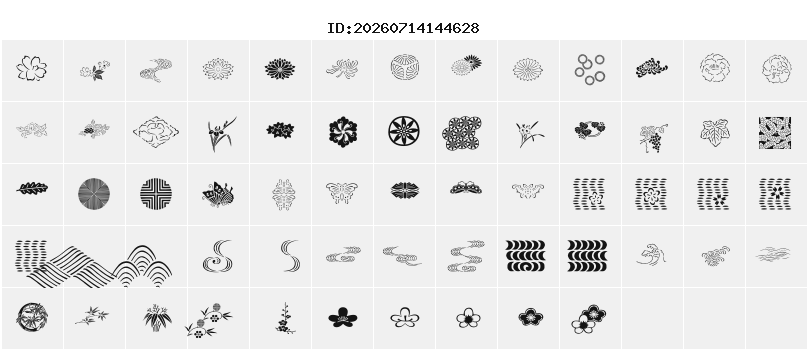
Japanese Garden Ornmnt ITC Preview
• Font Name: Japanese Garden Ornmnt ITC
• Designer: Akira Kobayashi
• Manufacturer: International Typeface Corporation